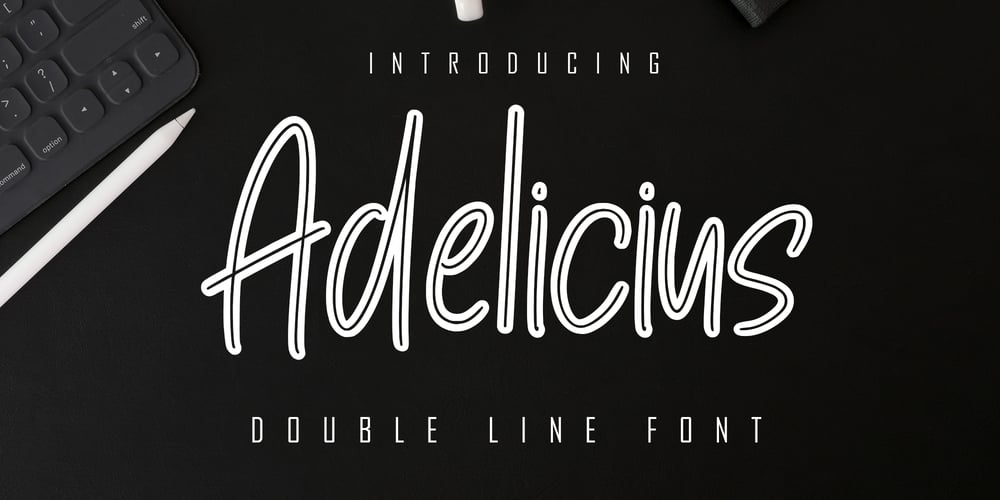
Adelicius Font Family was designed by Irfan Mahmudin and published by Skiiller Studio. Adelicius contains 1 styles and family package options. Adelicius is a Double line type font combined with a rapi so it looks elegant, suitable to support a variety of designs and your business